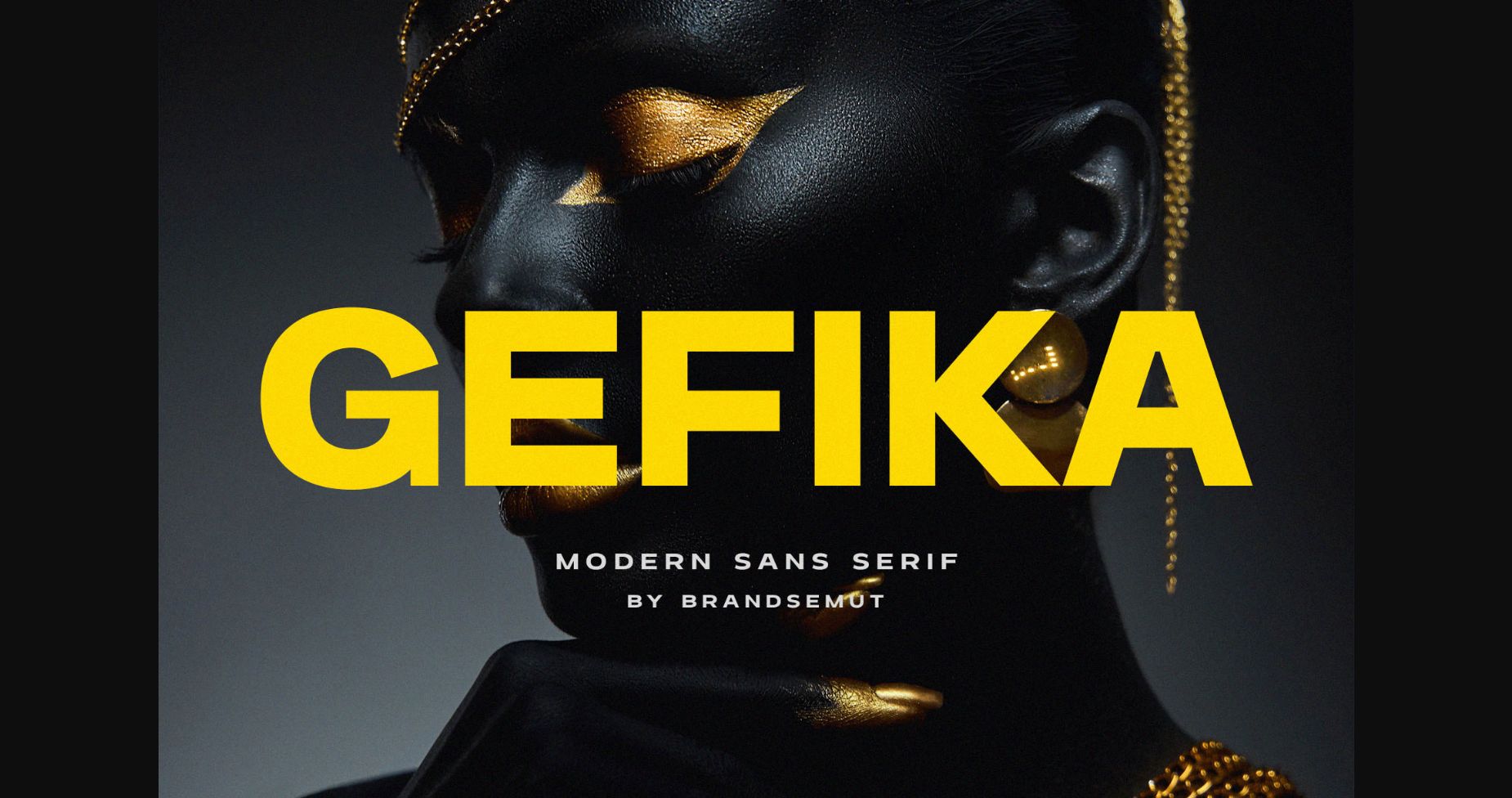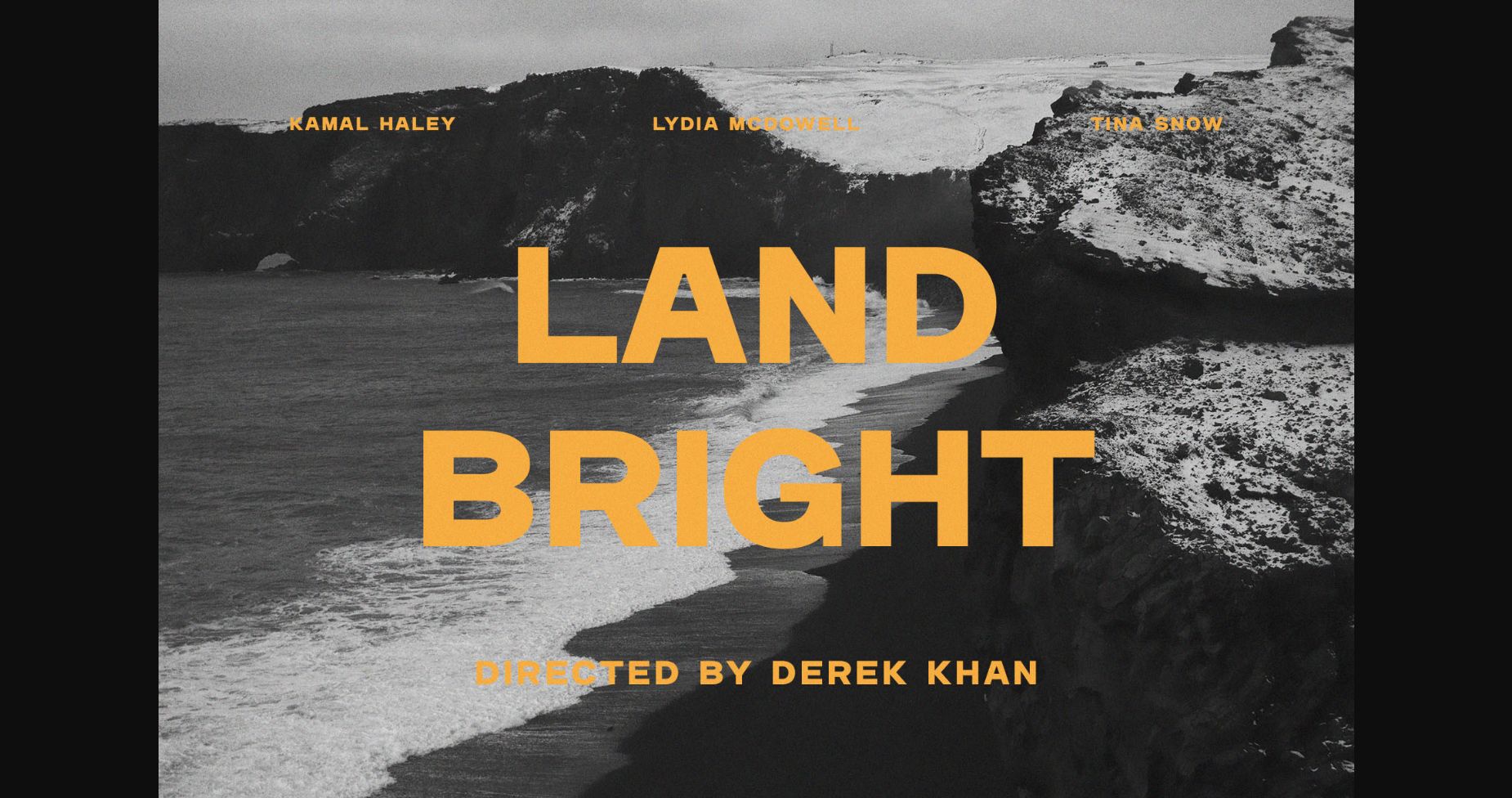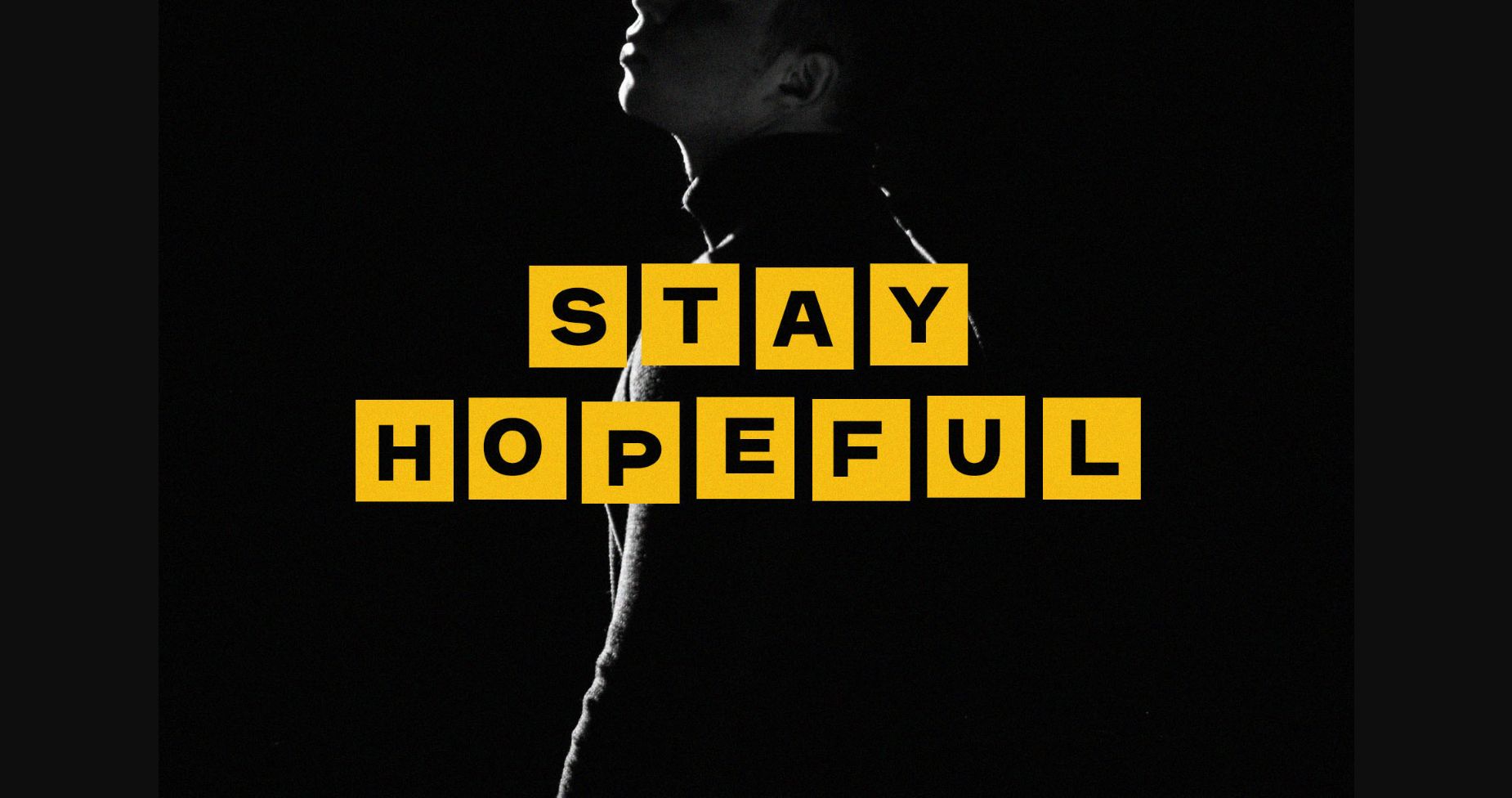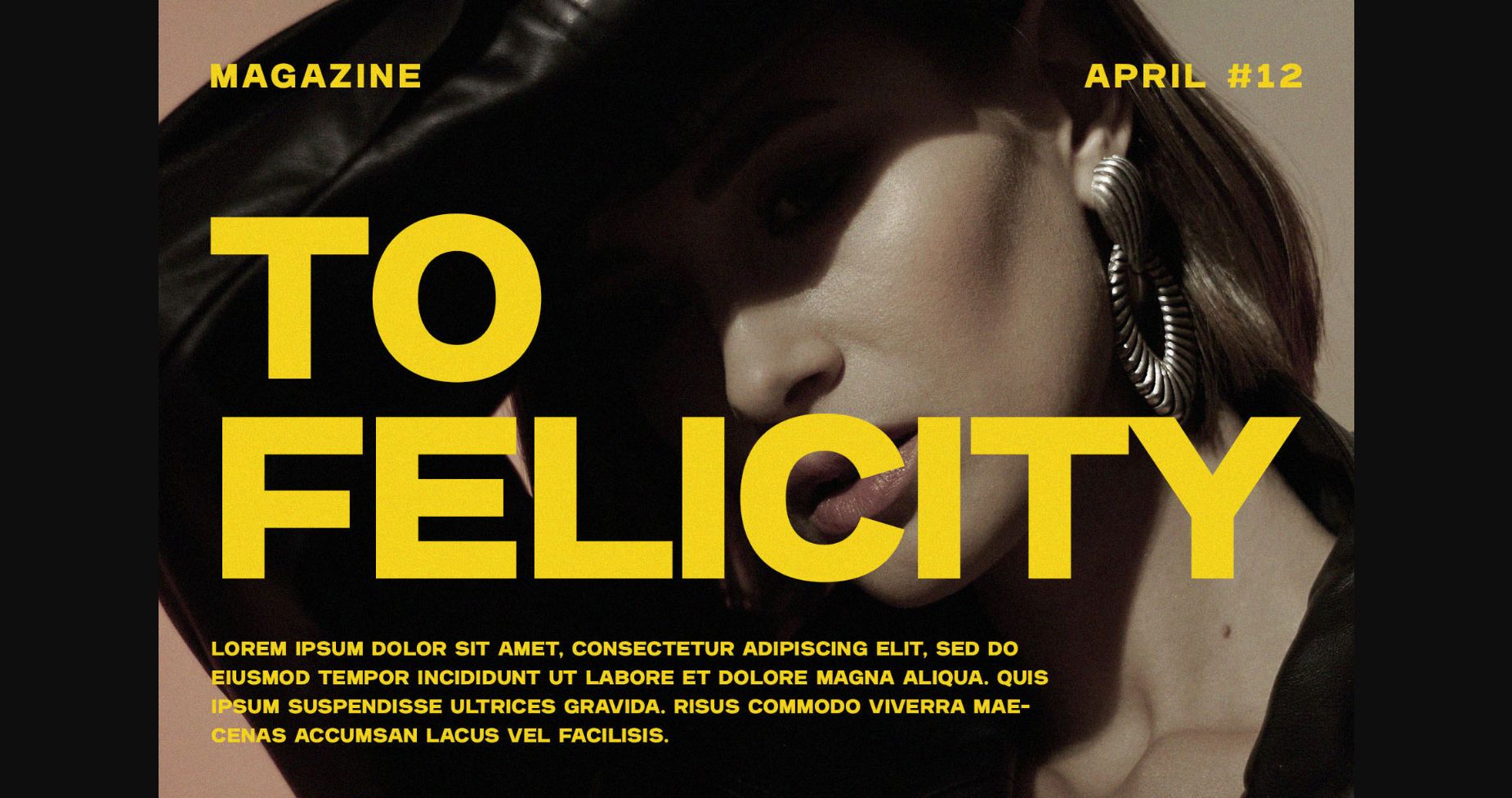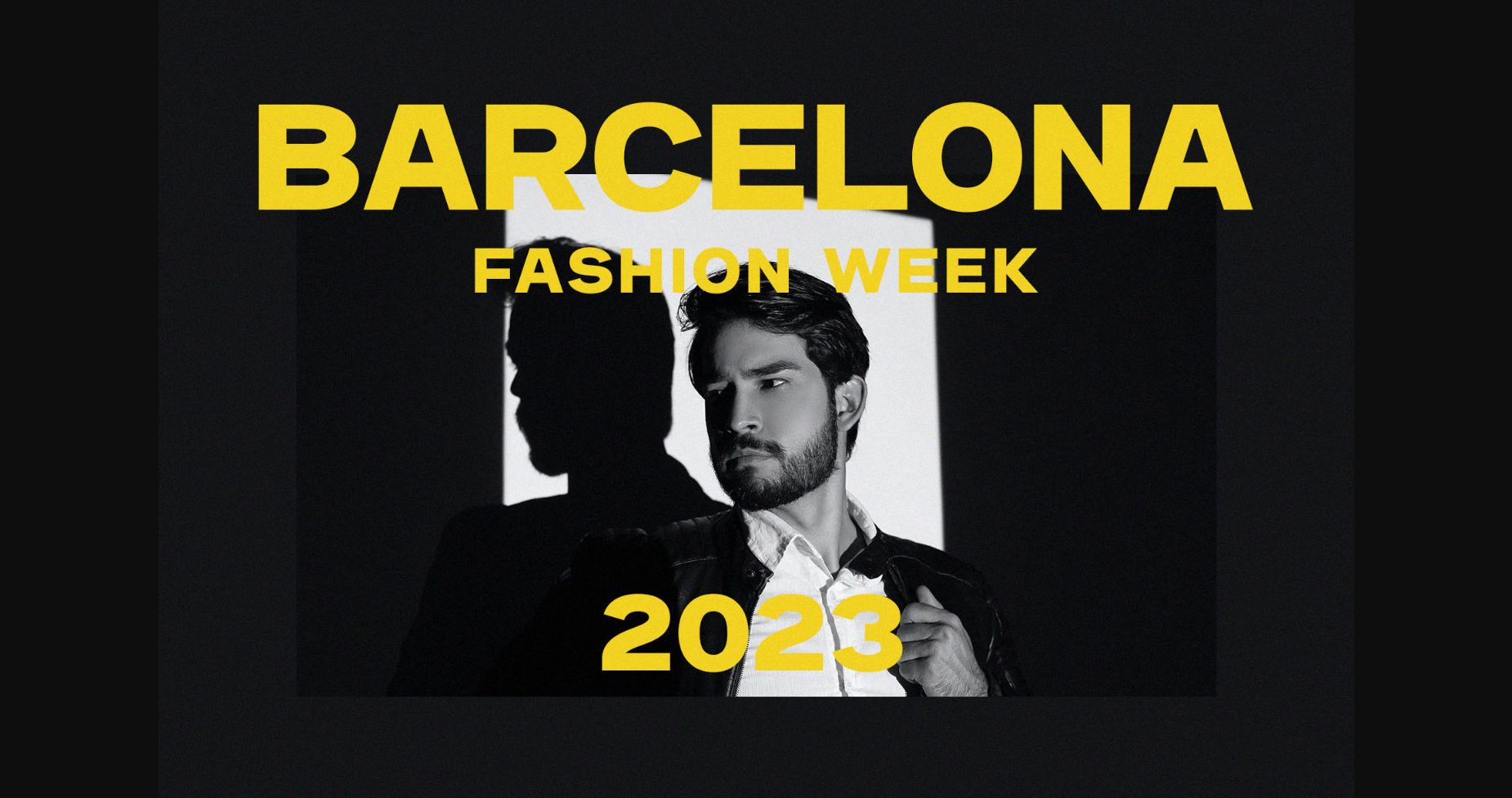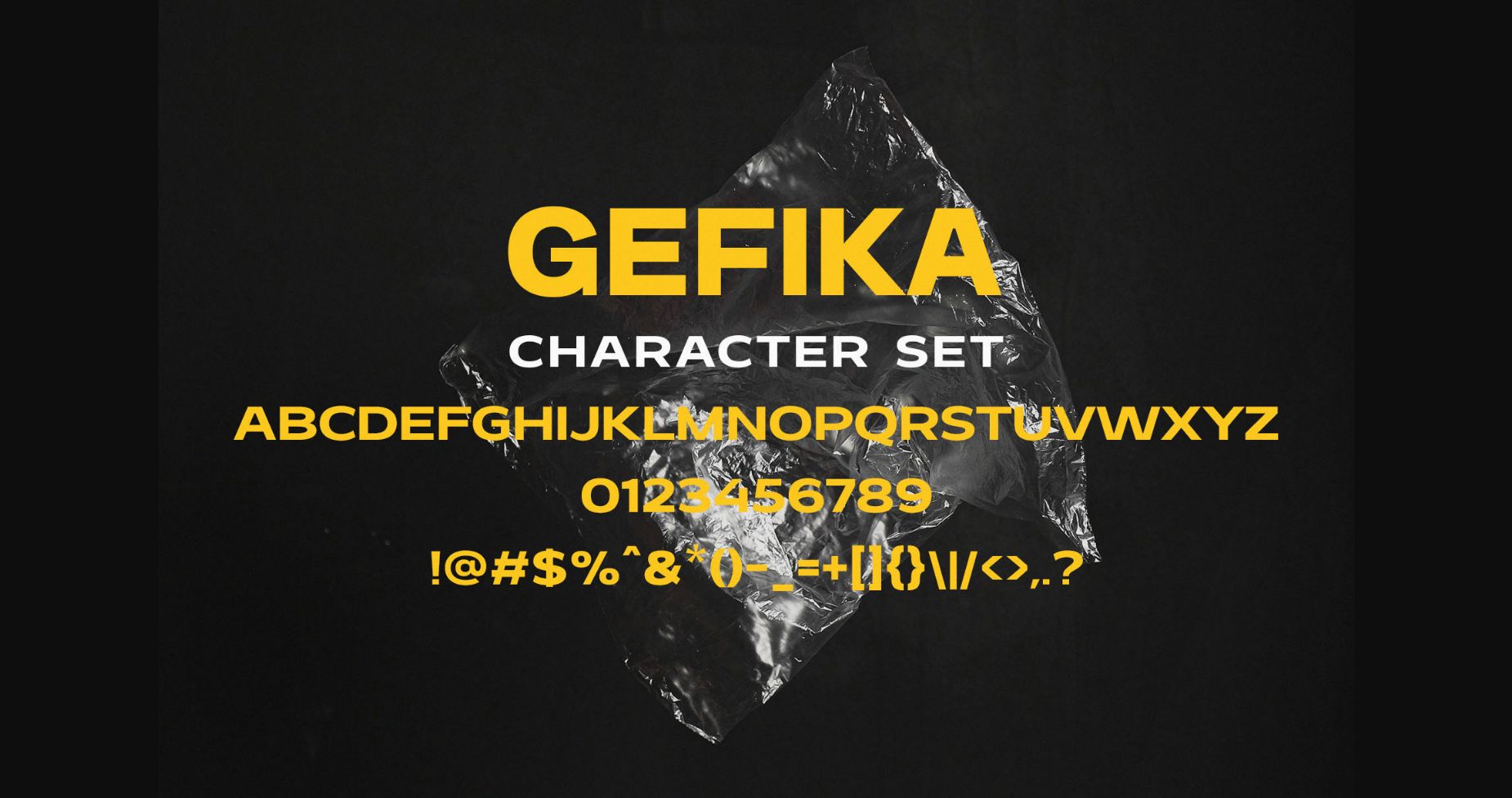
About Gefika Font
Gefika is a bold sans-serif font that commands attention with its thick and heavy letterforms. Its uniform strokes and simple design make it easy to read, while its strong and impactful appearance makes it perfect for headlines, titles, and branding projects that require a bold and modern aesthetic.